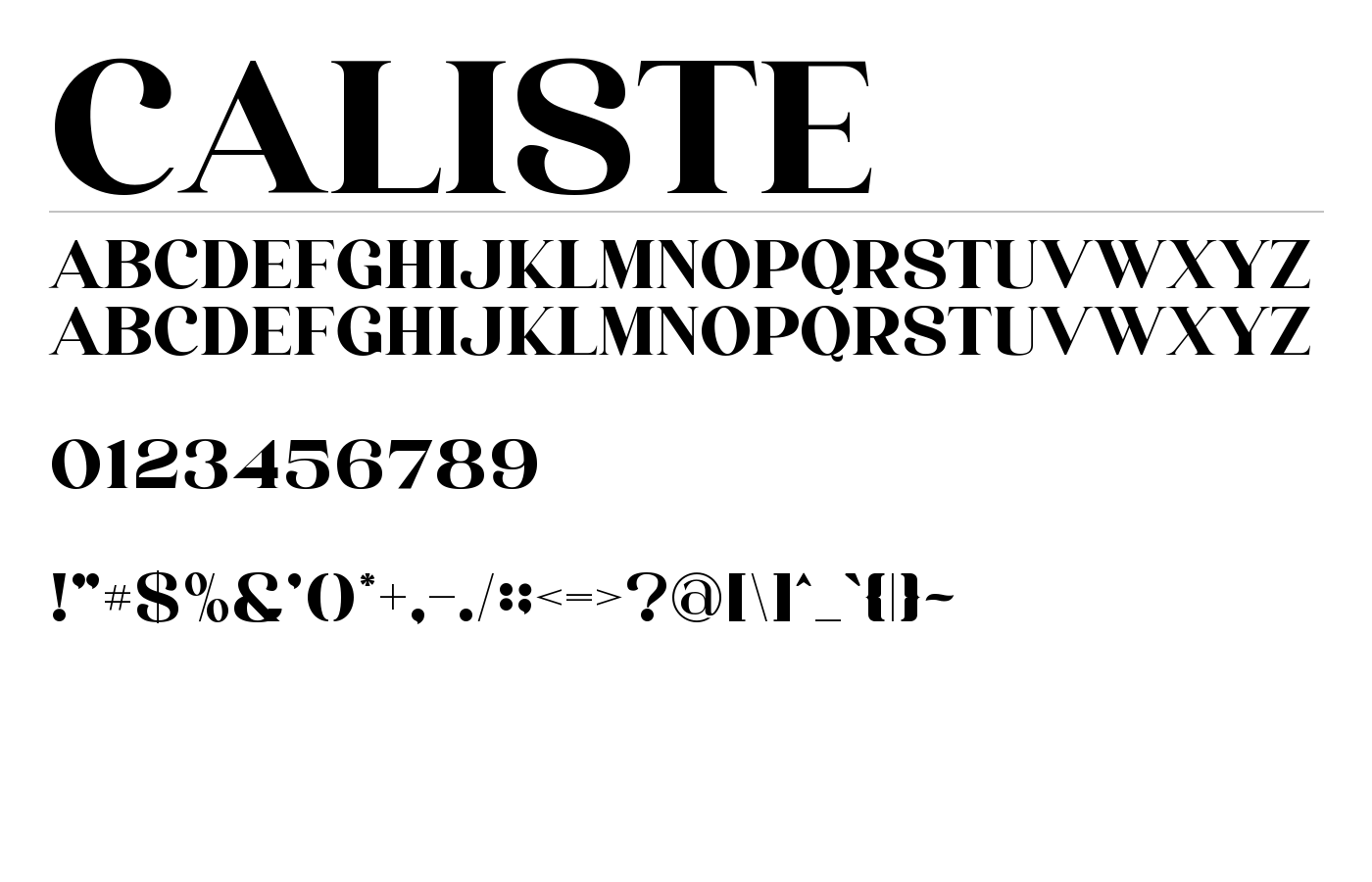
Caliste is a bold serif font with a strong contrast between thick and thin strokes, featuring elegant bracketed serifs and a high x-height that balances classic sophistication with modern readability. Its refined letterforms with single-story ‘a’ and unique details like the curved tail on the ‘Q’ make it ideal for luxury branding, editorial headlines, and stylish logos where a timeless, confident presence is desired. This font excels in creating a striking, upscale look that commands attention while maintaining clarity and grace.
Caliste Font
About Caliste Font
| Font family | Caliste Font |
| Designer | Biham Santoso |